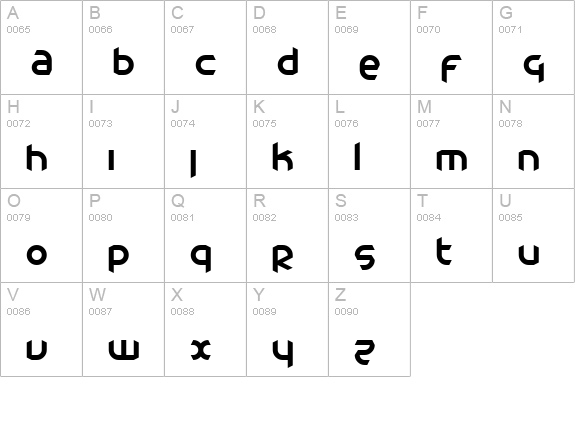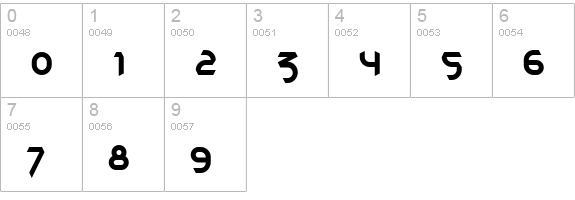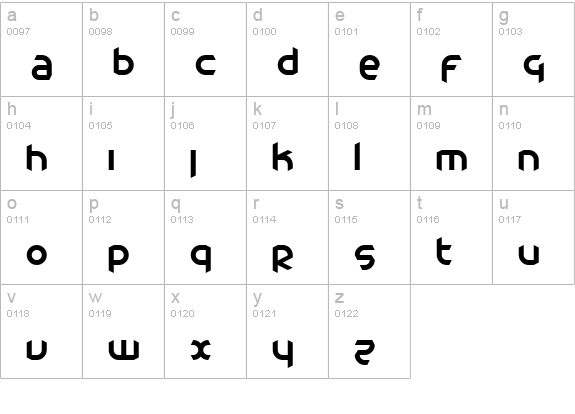
Catharsis Cargo font is a striking and versatile typeface that exudes a sense of modernity and edginess. Its bold and angular design makes it perfect for conveying a sense of strength and dynamism in various design projects. The font's unique characters and intricate details add a touch of sophistication to any text or headline. What sets Catharsis Cargo font apart is that it is available for free download at FontsMarket.com. This means that you can easily access this contemporary and eye-catching font to elevate your designs without any cost. Whether you are working on branding, advertising, or any other creative project, Catharsis Cargo font is a fantastic choice to make a bold statement. Download it now and unleash your creativity with this exceptional typeface.